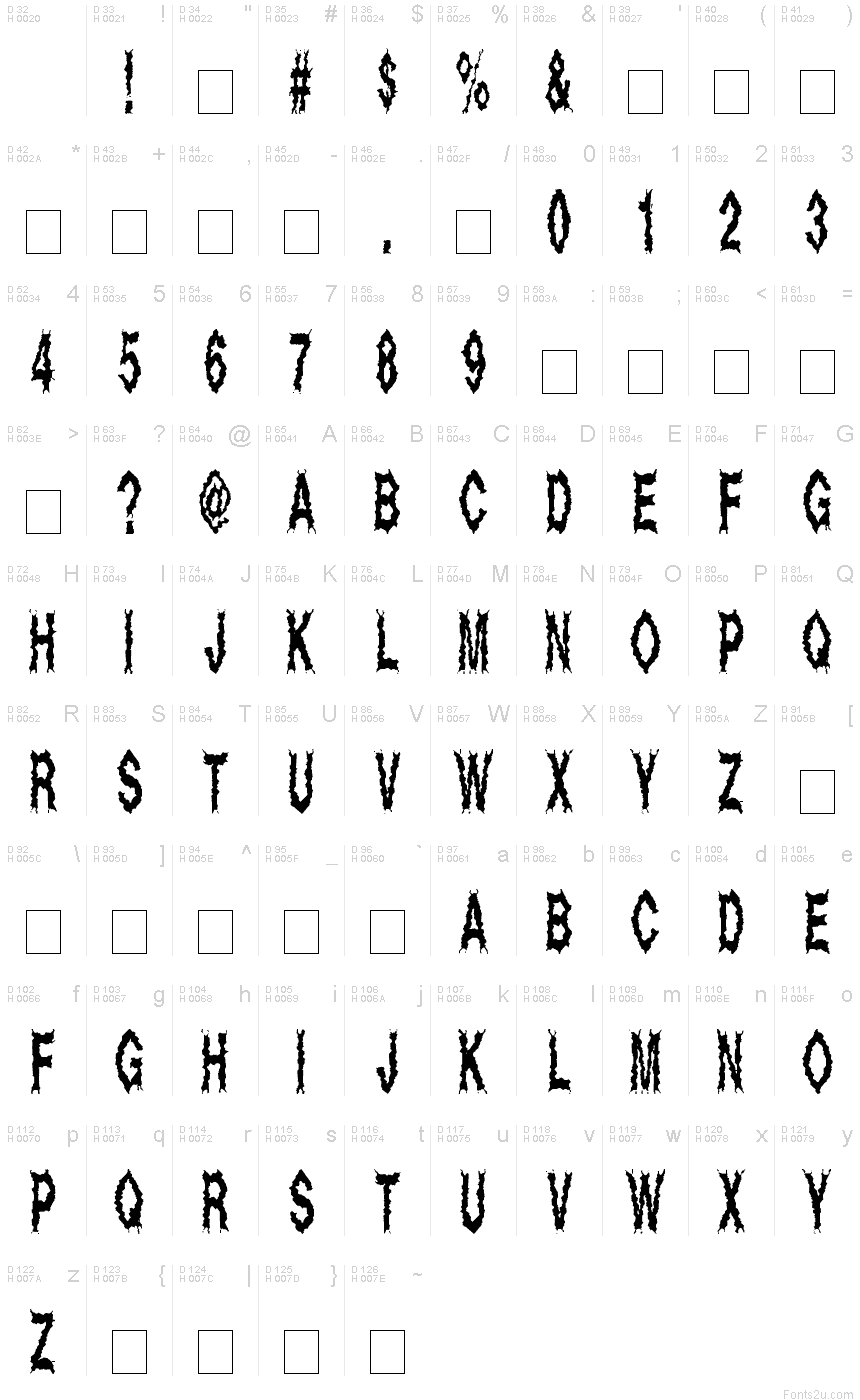
Dead Alive
Dead Alive font by Rev. Josh Wilhelm turns stark capitals into dripping, rotten shapes that feel torn from a grindhouse poster. The letters are thick, uneven, and chewed away at the edges, instantly giving headlines a horror-movie intensity. It’s a free font that works best when you want type to look loud, damaged, and a little unsettling.
Use Dead Alive for Halloween flyers, horror film titles, haunted house signage, metal or punk band logos, game splash screens, and dark book or comic covers. This free font packs enough weight to hold its own on busy artwork, especially at large sizes. Pair it with a clean sans serif in small text to keep things readable while the main title does the screaming.